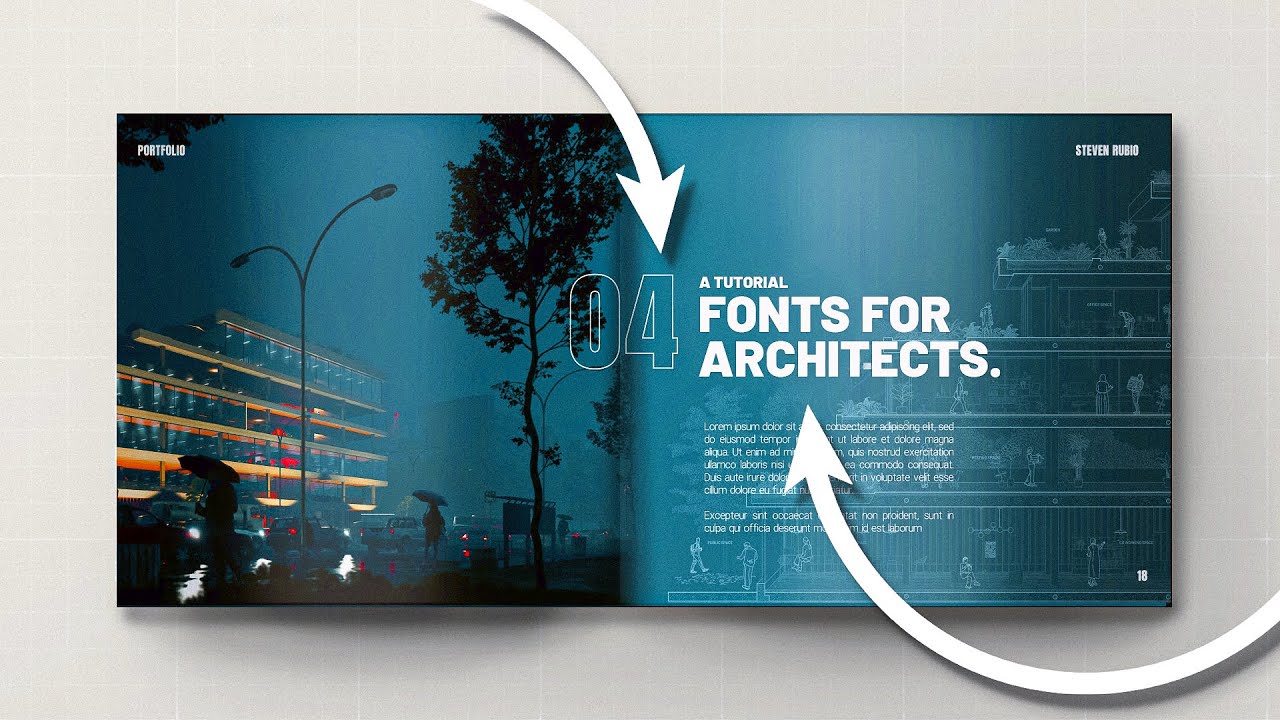
Fonts Architects Should Be Using
Best 13 Best Fonts For Architects Artofit In this guide, we’ll explore the most popular fonts used in architecture, explain their stylistic relevance, and offer font pairing strategies to help you build a cohesive visual identity. While using too many font for architects could end up making the portfolio look cumbersome, a subtle pairing of a few of the following fonts can do the much desired trick.
Top Adobe Fonts Architects Need To Know We list ten font suggestions for architects, characterizing each of them and their possible uses. In this blog, we will explore 15 must know architecture fonts that blend structure with elegance, perfect for creative and professional context. This guide covers the 10 best architectural typefaces — from free options like spartan and montserrat to premium choices like neutra display and futura — along with font pairing strategies and typography best practices for 2025. Choosing the right font is essential to creating a cohesive, professional, and visually compelling architectural presentation. the 25 google fonts listed here offer a range of styles to suit different purposes, from formal project documentation to bold presentation headers.
15 Architecture Fonts Every Architect Should Know This guide covers the 10 best architectural typefaces — from free options like spartan and montserrat to premium choices like neutra display and futura — along with font pairing strategies and typography best practices for 2025. Choosing the right font is essential to creating a cohesive, professional, and visually compelling architectural presentation. the 25 google fonts listed here offer a range of styles to suit different purposes, from formal project documentation to bold presentation headers. Here are the best architecture fonts and several different styles, including crisps sans serifs and legible handwritten typefaces. fonts are one backbone of architecture and design. choosing a typeface that matches your work can determine your project’s success or failure. The below selection of fonts are the architecture fonts that we have had the most success with, and that we feel can be used in just about any architectural situation. In this comprehensive guide, we will explore the various types of fonts used in architecture, the factors to consider when choosing a font, and provide some examples of popular font choices in the field. Whether you're showcasing a modern skyscraper or a cozy cabin design, the right typography makes all the difference. dive into this handpicked list and discover the font that'll make your portfolio truly stand out!.
15 Architecture Fonts Every Architect Should Know Here are the best architecture fonts and several different styles, including crisps sans serifs and legible handwritten typefaces. fonts are one backbone of architecture and design. choosing a typeface that matches your work can determine your project’s success or failure. The below selection of fonts are the architecture fonts that we have had the most success with, and that we feel can be used in just about any architectural situation. In this comprehensive guide, we will explore the various types of fonts used in architecture, the factors to consider when choosing a font, and provide some examples of popular font choices in the field. Whether you're showcasing a modern skyscraper or a cozy cabin design, the right typography makes all the difference. dive into this handpicked list and discover the font that'll make your portfolio truly stand out!.
15 Architecture Fonts Every Architect Should Know In this comprehensive guide, we will explore the various types of fonts used in architecture, the factors to consider when choosing a font, and provide some examples of popular font choices in the field. Whether you're showcasing a modern skyscraper or a cozy cabin design, the right typography makes all the difference. dive into this handpicked list and discover the font that'll make your portfolio truly stand out!.
15 Architecture Fonts Every Architect Should Know